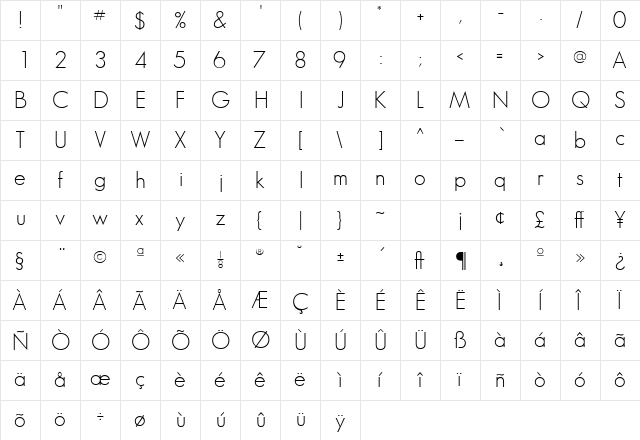
Sanderson Regular
Design Context for Sanderson Typeface
Sanderson takes a measured approach to typography — its balanced proportions and neutral character make it a reliable workhorse for both digital and print work.